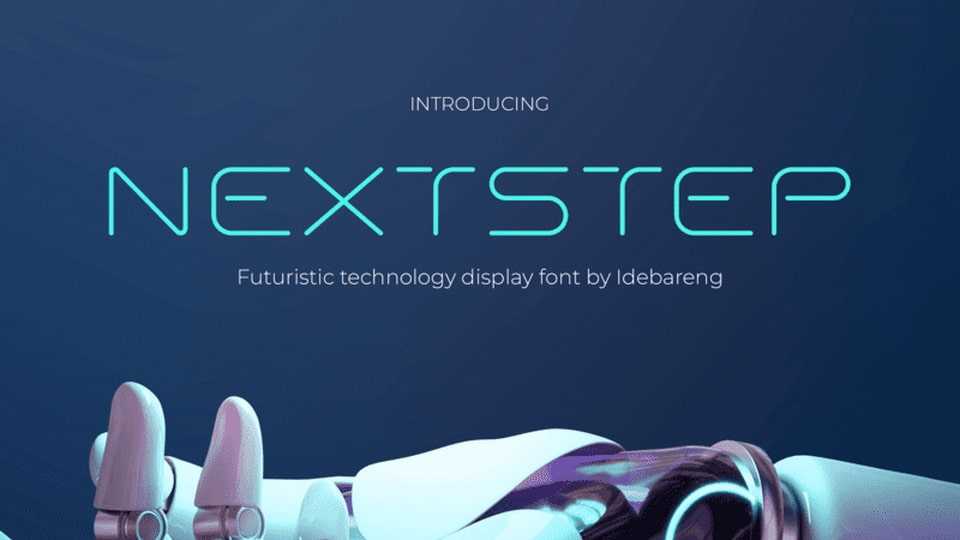
Download Nexstep font, the perfect futuristic technology display typeface for your digital and creative designs. Its sleek and modern style is perfect for website, film, and music projects, as well as YouTube content creators who want to make a bold statement with their designs.
Designer: IDEBARENG